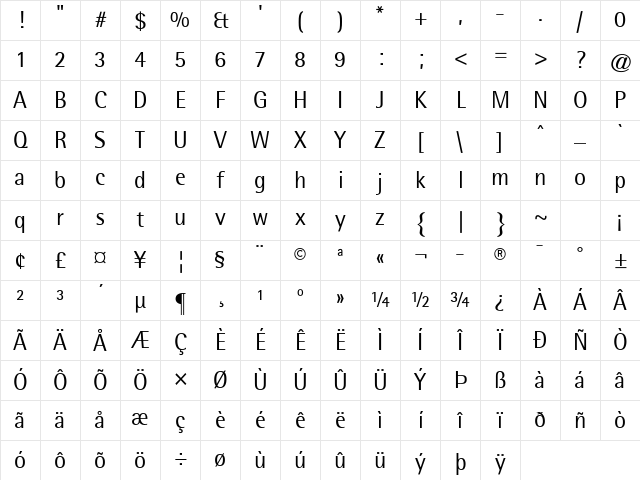
RotisSemiSans Regular
RotisSemiSans Family
Design Context for RotisSemiSans
RotisSemiSans is a composed and adaptable typeface that performs quietly and consistently across a wide range of design contexts.